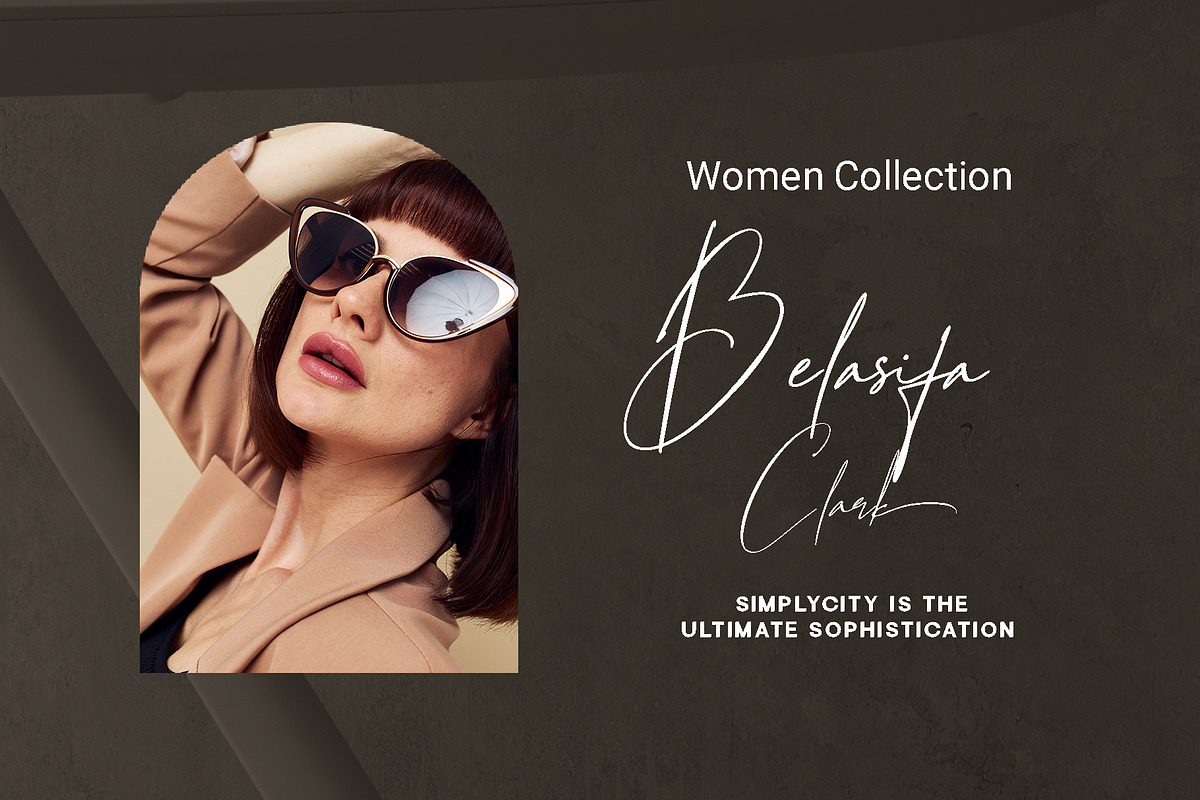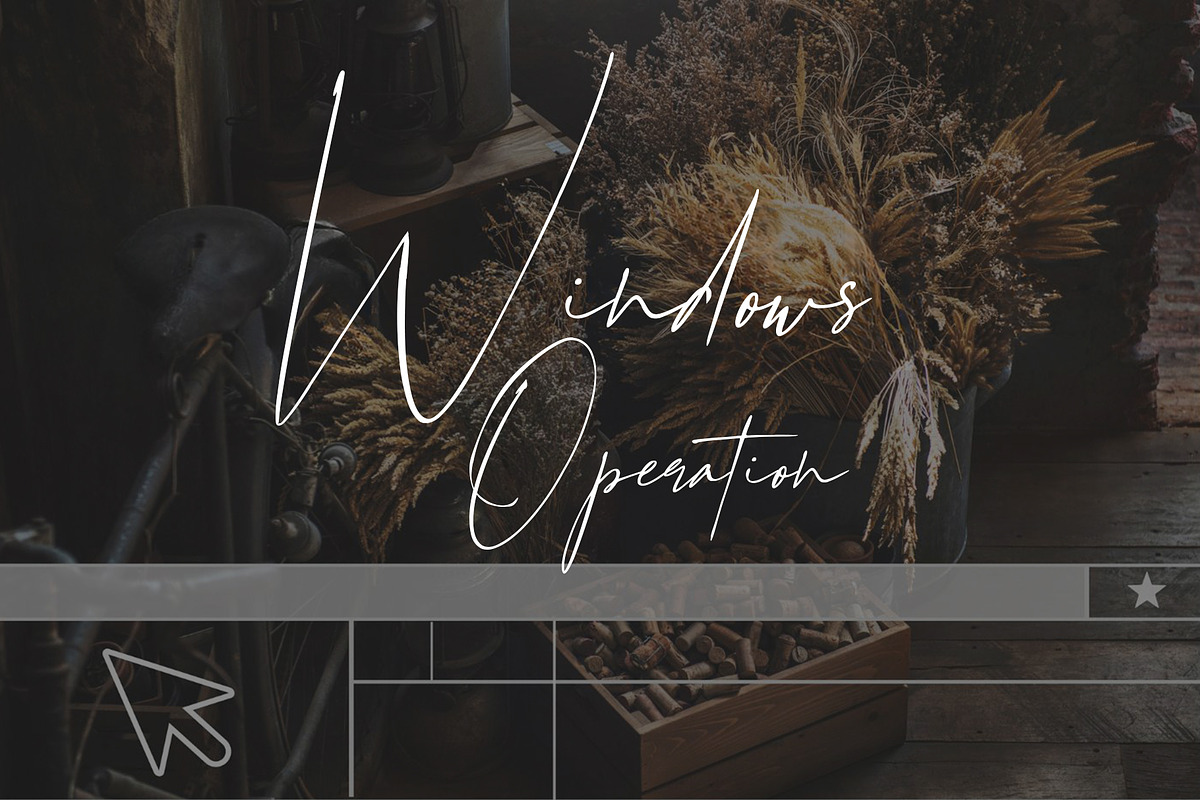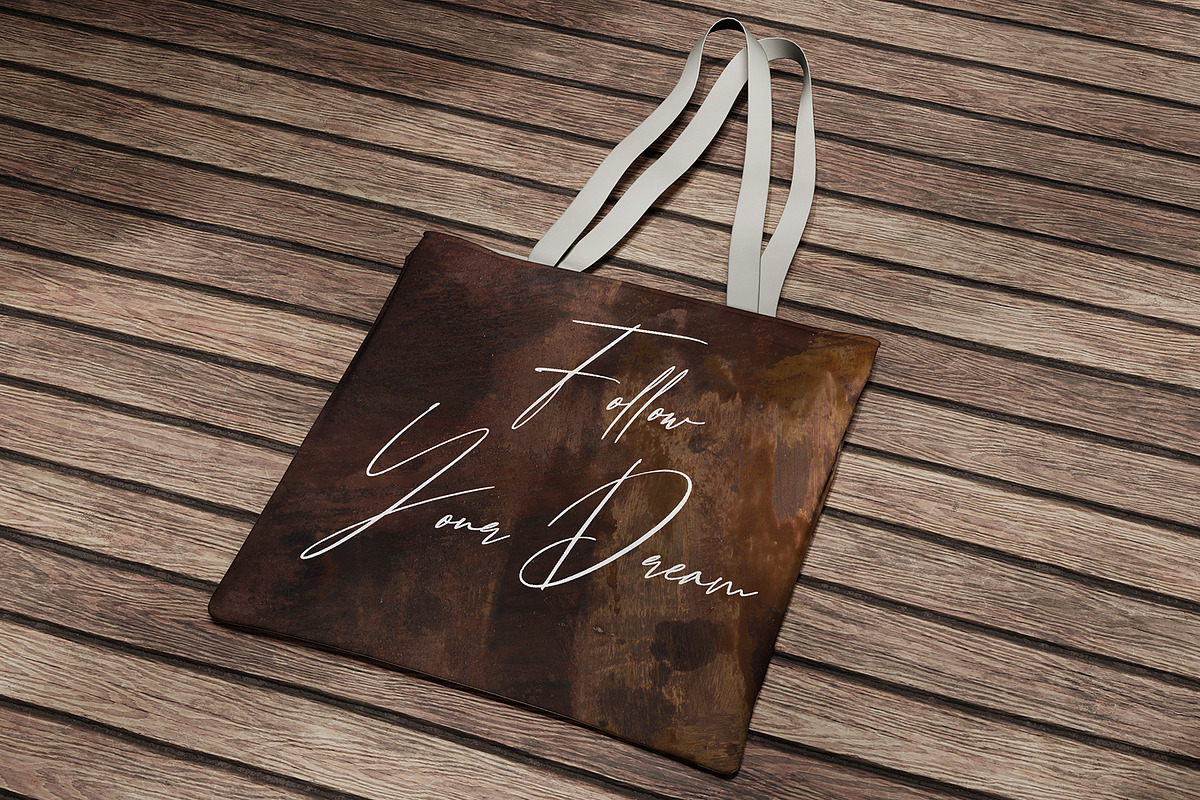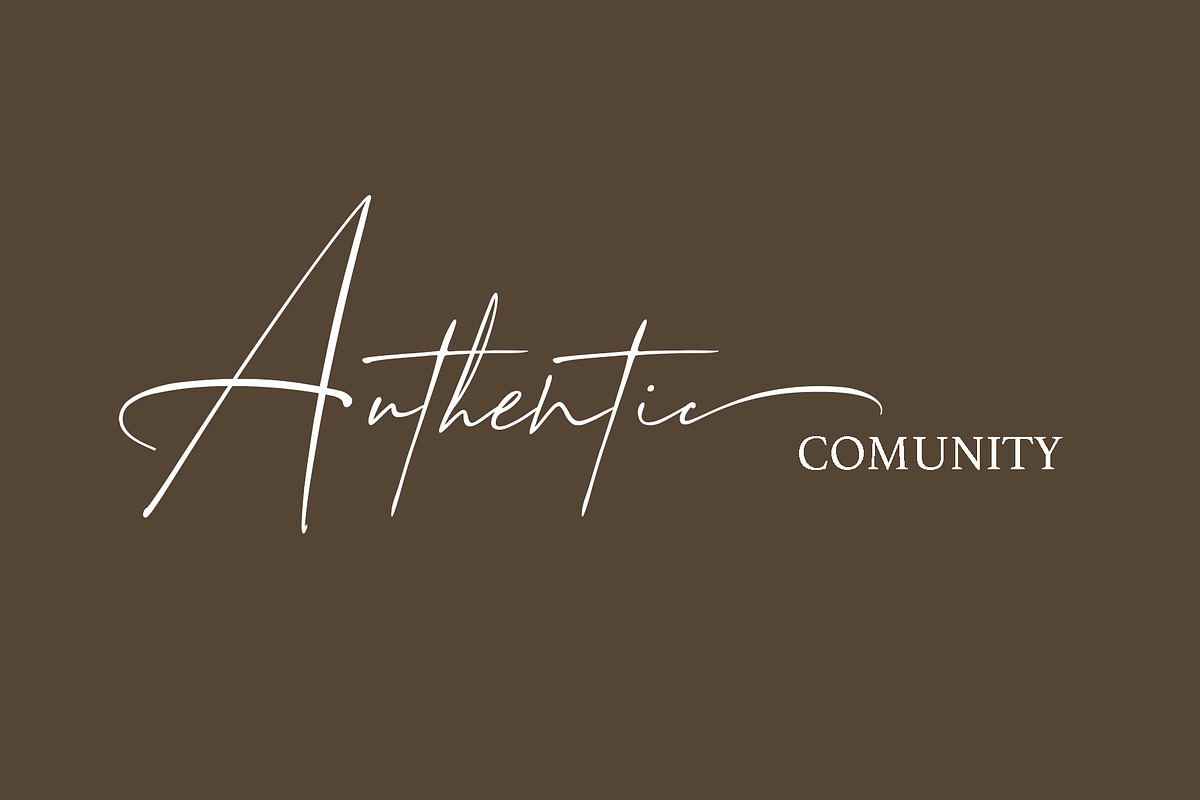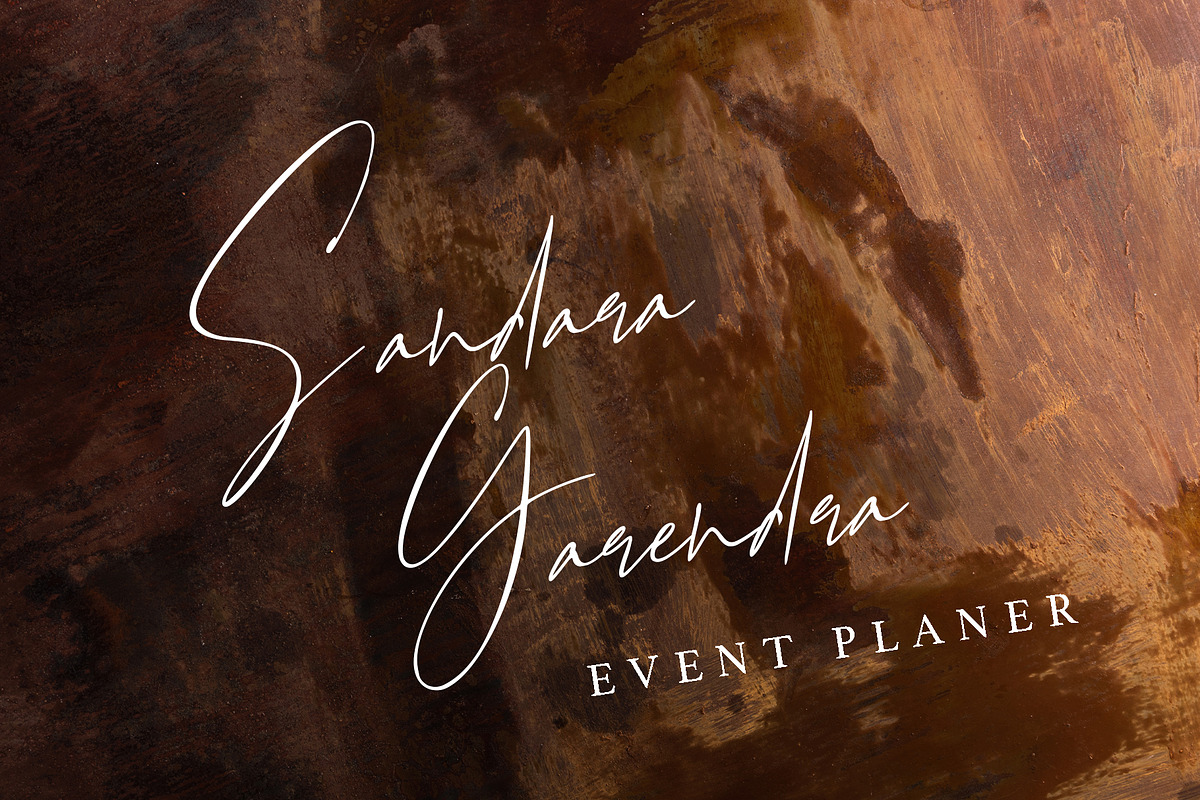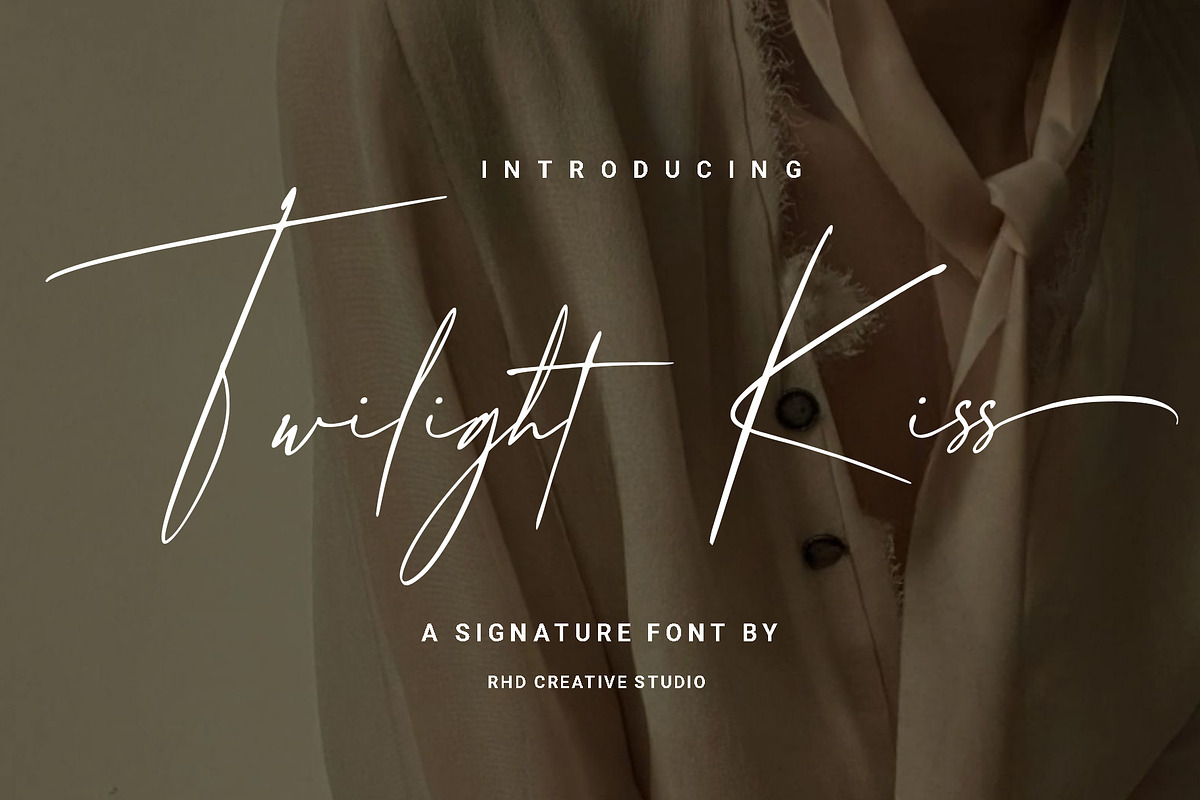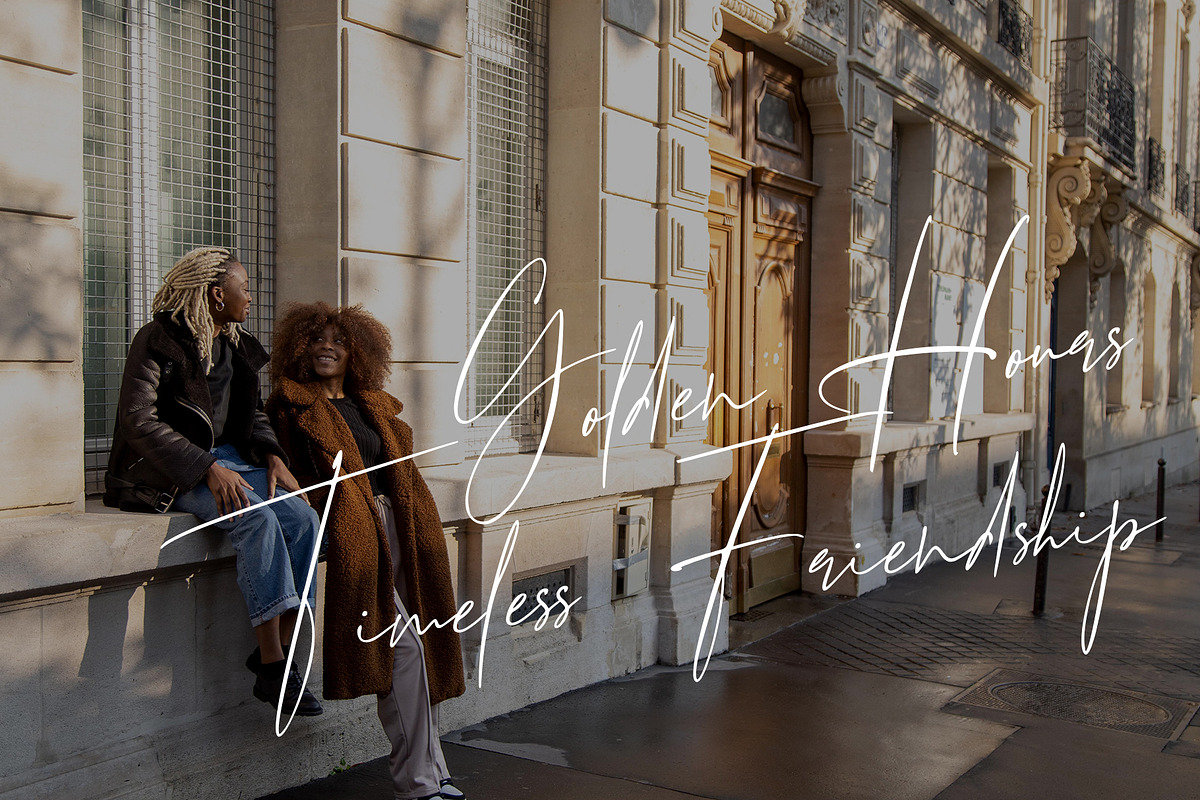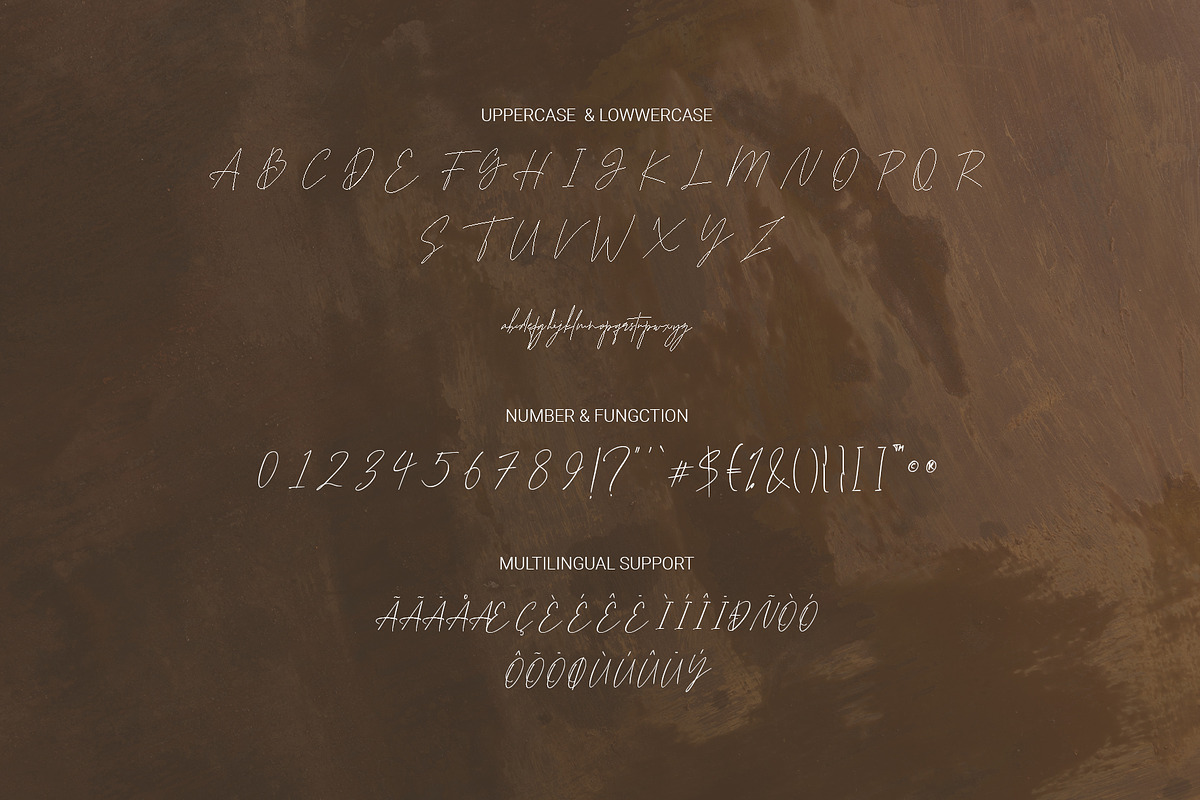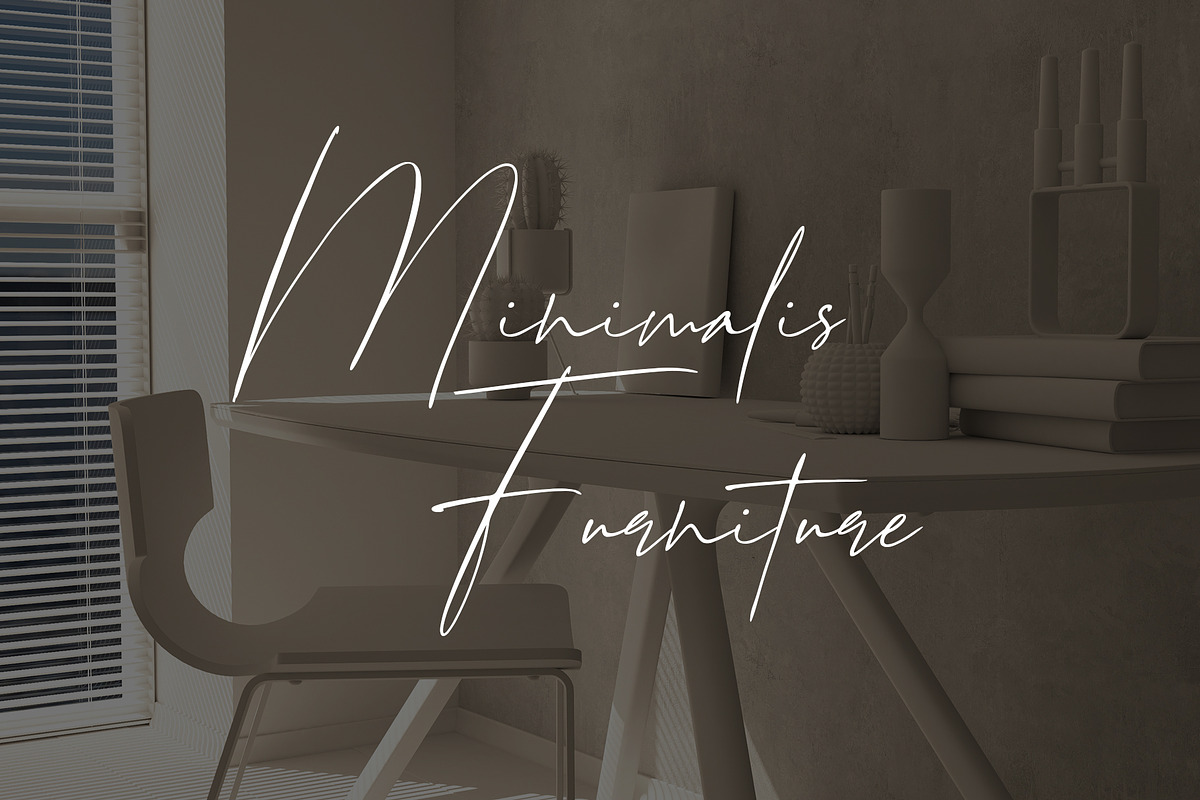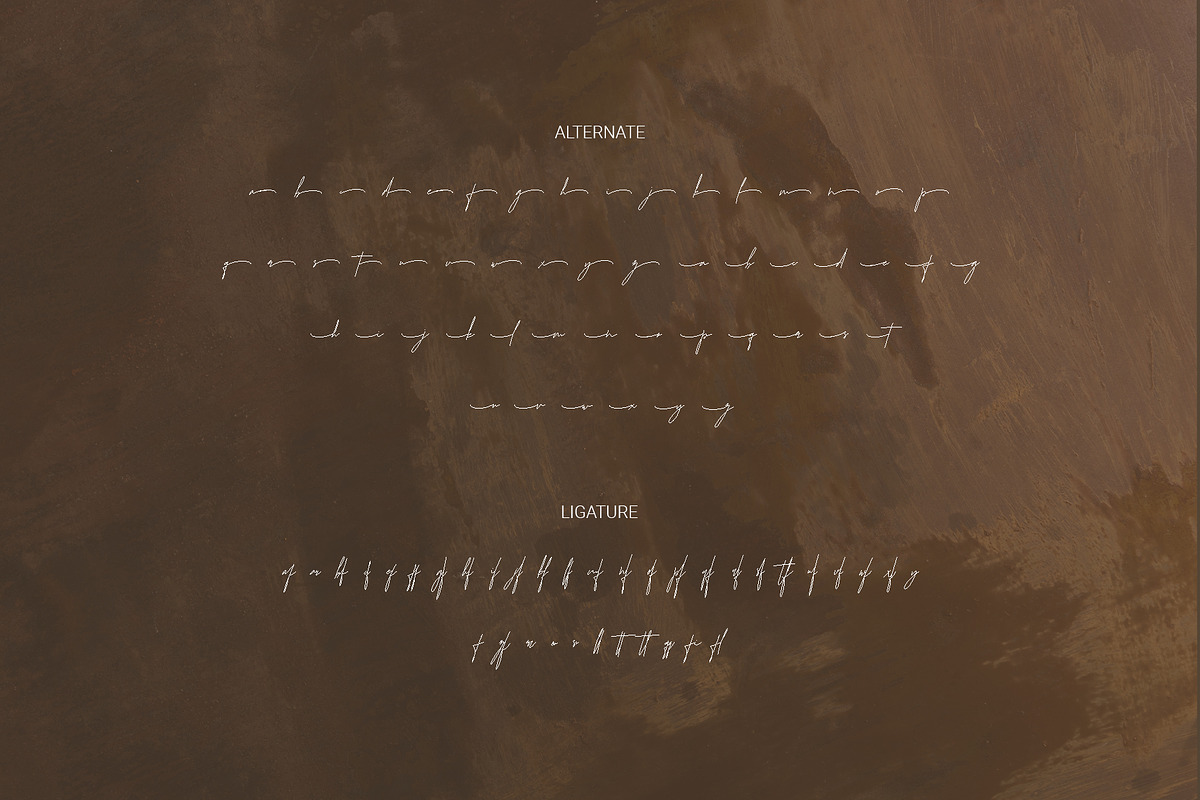
Twilight Kiss - A Sgnature Font
Hello everyone, I would like to introduce Twilight Kiss - A Sgnature Font.
Twilight Kiss - A Sgnature Font with Handmade character. Twilight Kiss - A Sgnature Font, Modern font to make your design project stand out! Twilight Kiss a perfectly choice for any creative endeavor, creating, modern, chic, lifestyle design such as logotype, title, cover, branding, invitations, wedding designs, display and magazine, social media posts, advertisements, printed quotes, product packaging, corporate brand, product designs, labels, photography, watermarks, special events and any other project with modern touch.
- Alternate & Ligature